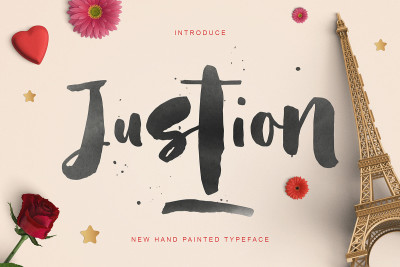
Justion Typeface
Justion Typeface Font
Justion Typeface is a thoughtfully constructed typeface that performs equally well in display and body text settings.